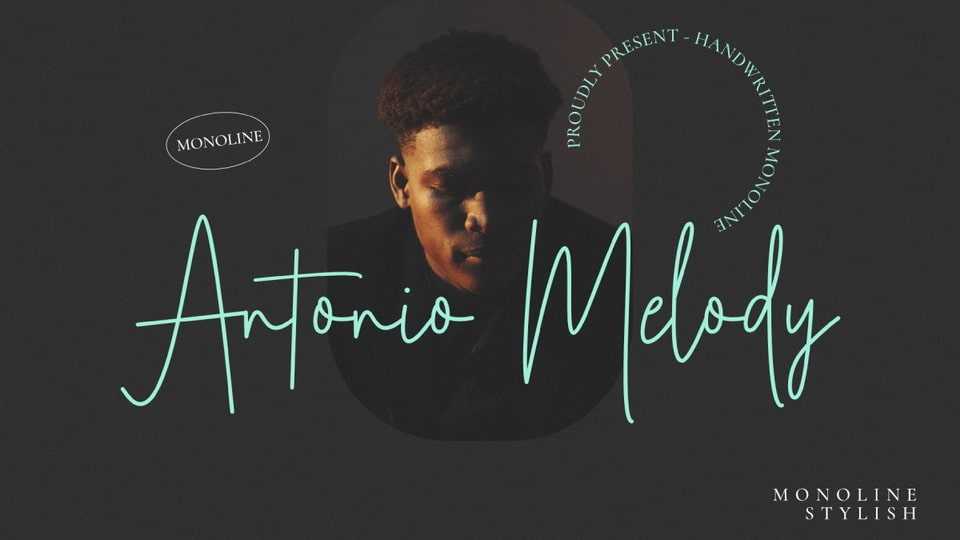
Download Antonio Melody font, a modern signature style typeface with a monoline flow that you can use to perfect your design. Every single letter of Antonio Melody font has been carefully crafted to make your text looks beautiful.
Designer: Picky Labs